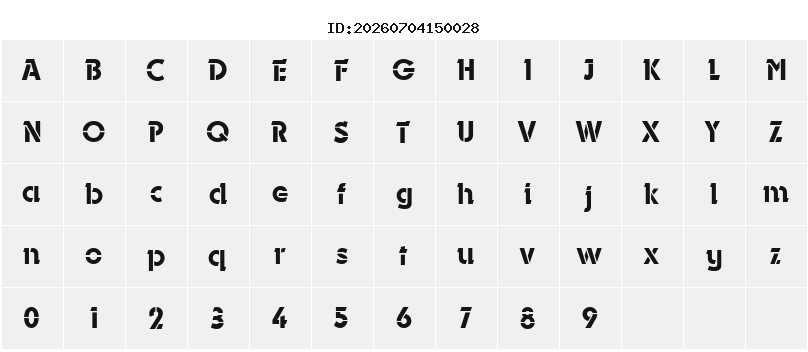
Durango-Stencil-Medium Preview
About Durango-Stencil-Medium.ttf
Durango-Stencil-Medium.ttf is a modern, elegant sans-serif font designed for ultimate readability and visual harmony. Perfect for branding, headlines, web design, and print materials.